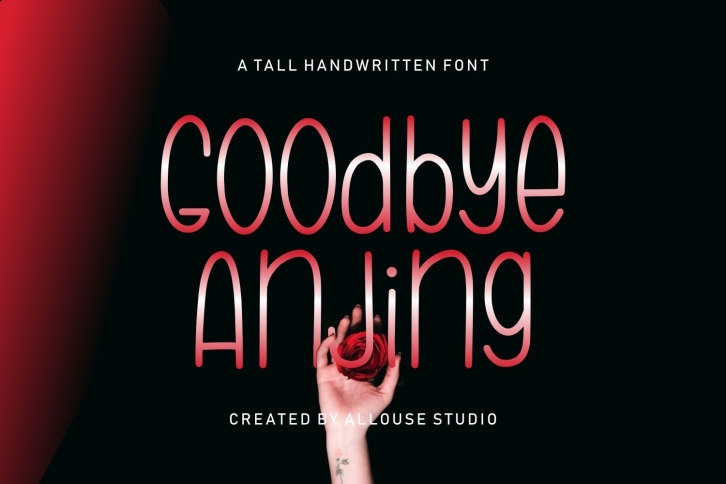
Web Font - Goodbye Anjing - a Tall Handwritten Font Download
Web is a great font that was designed by Allouse Studio. Imagine the amount of combinations you can create using this font! The archive is 7.90 MB and it was released on November 29, 2020. Web looks beautiful on wedding invitations, greeting cards, logos, posters, labels, t-shirt designs, logos, business cards and is perfect for use in ink or watercolor works, fashion, magazines, packaging and food menus, children's books and more!